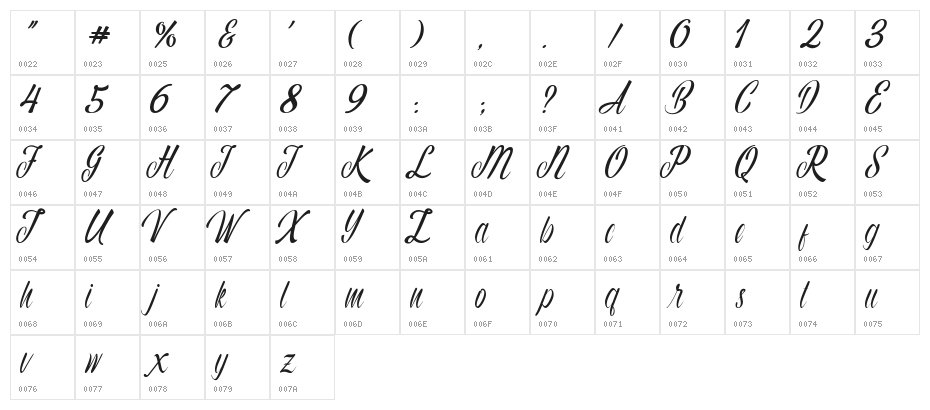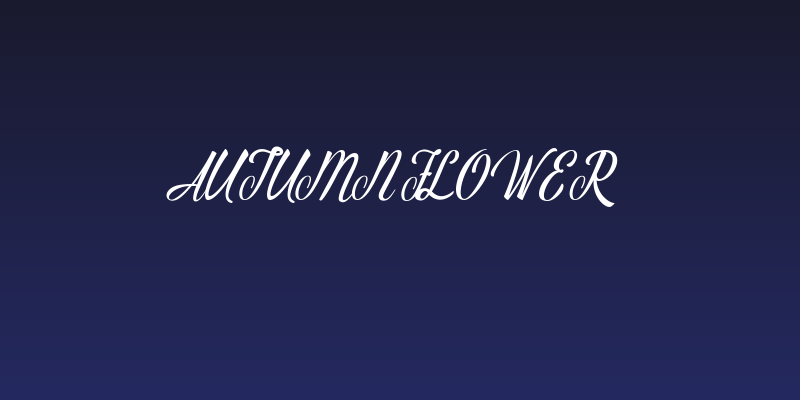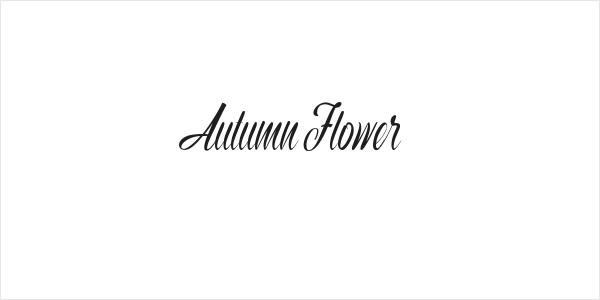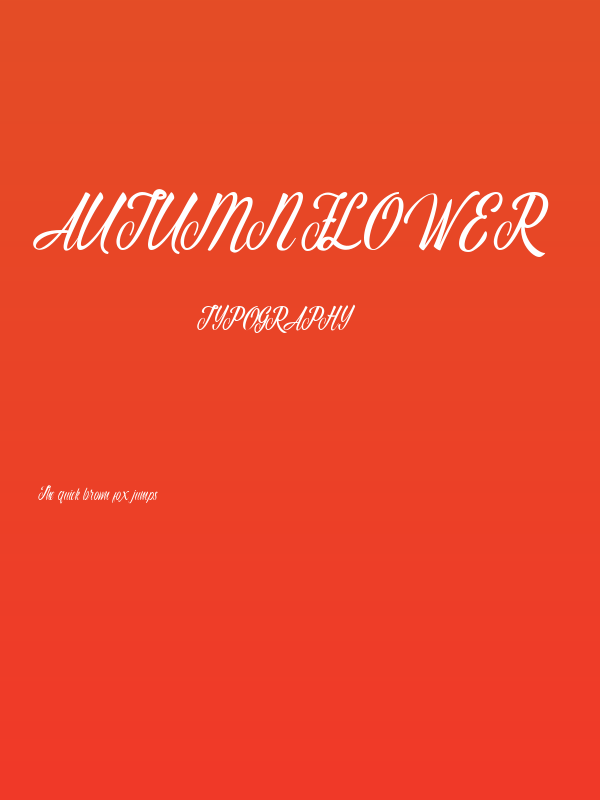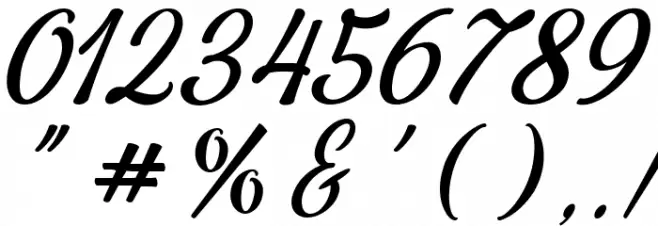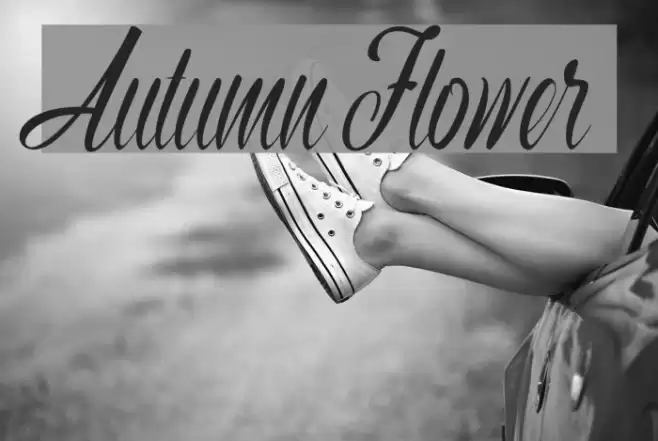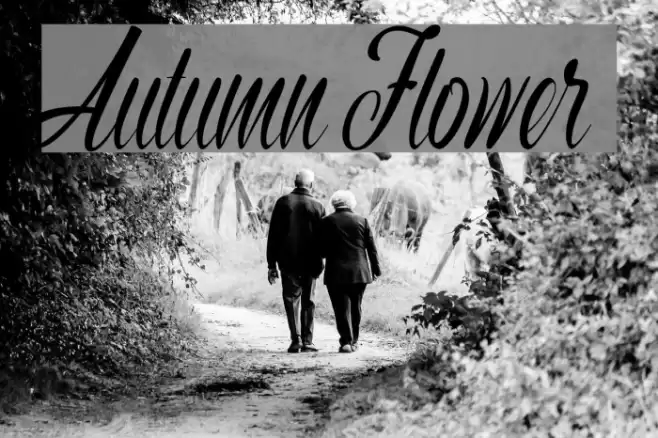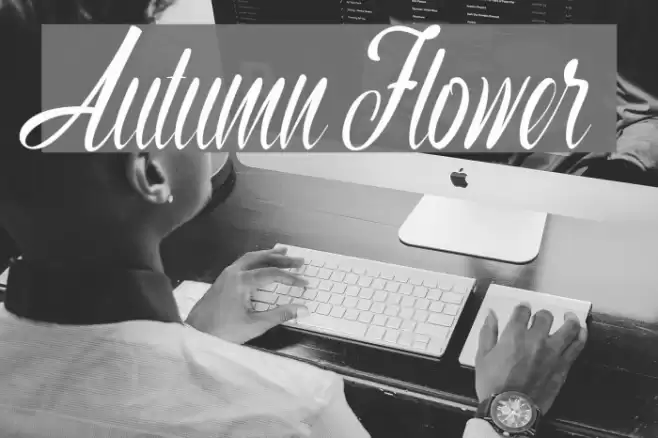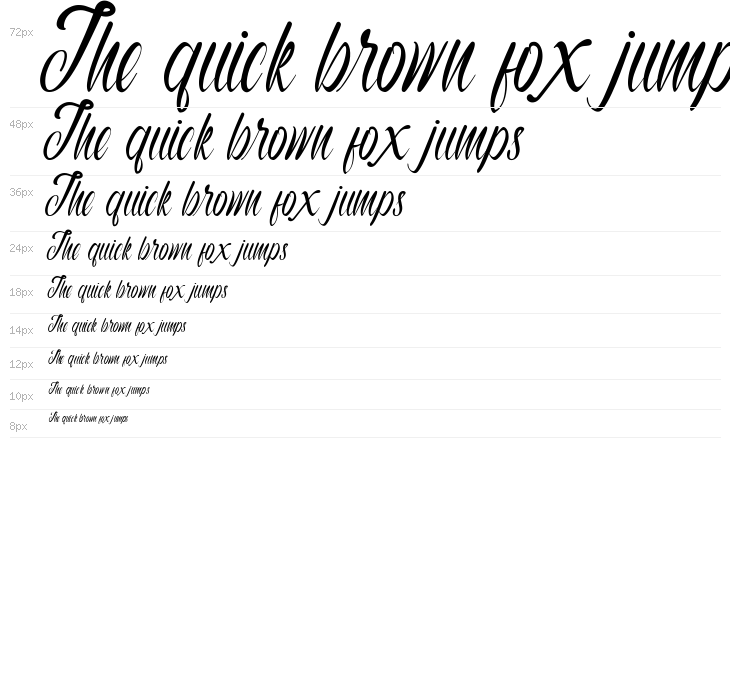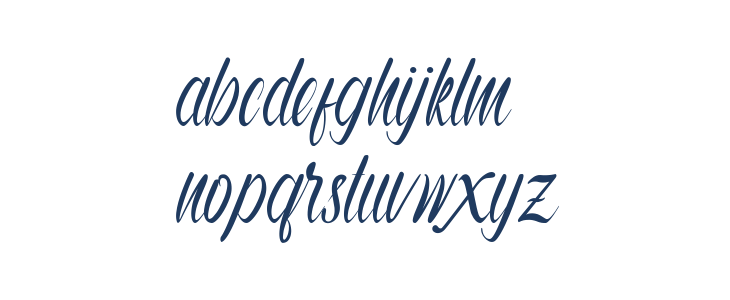
Autumn Flower Font
Autumn Flower Description
This font features an elegant and flowing script style, characterized by its smooth, cursive letters that convey a sense of sophistication and grace. The uppercase letters are bold and slightly slanted, with decorative flourishes that add a touch of flair. The lowercase letters maintain a consistent flow, connecting seamlessly in a way that mimics natural handwriting. The numerals are distinct and easy to read, while the special characters complement the overall aesthetic with their stylish curves. This font is perfect for projects that require a personal and artistic touch.
| Proposed Projects | Ideal for wedding invitations, greeting cards, branding, and elegant signage. |